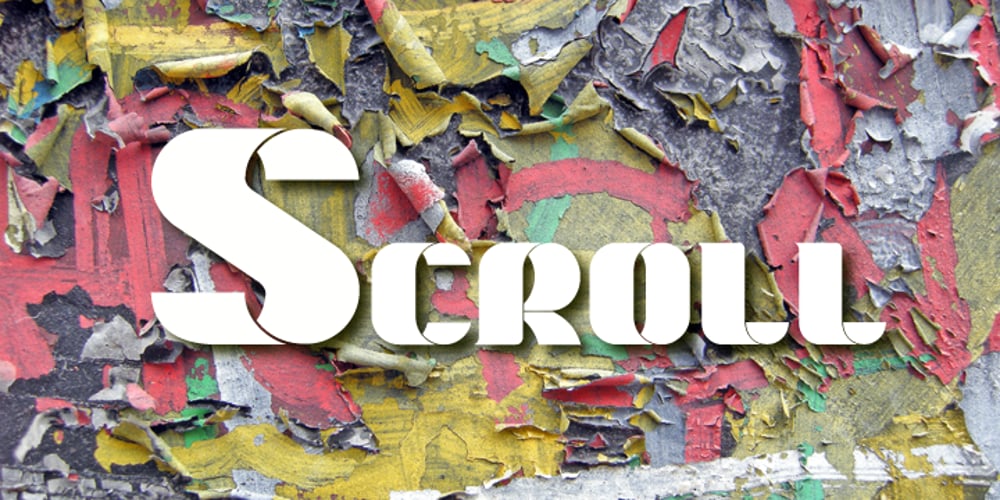
Marsh Scroll Font Family was designed by James Marsh and published by ArtyType. Marsh Scroll contains 1 styles and family package options. The concept for ‘Scroll’ came to me fully formed when setting out to design a bold display typeface. The premise for this was to base the letter-forms on a rolled strip of paper. A simple enough idea in principle but one I hadn’t seen before. After working out the basic characters I set about completing the full effect I was after. This was achieved by applying a suitably incised line following the curve at each turning point to convey the important three-dimensional aspects of a scroll. Although the phonetic name personifying the font was there as a working title from the outset, I didn’t commit to it fully until everything was completely resolved.